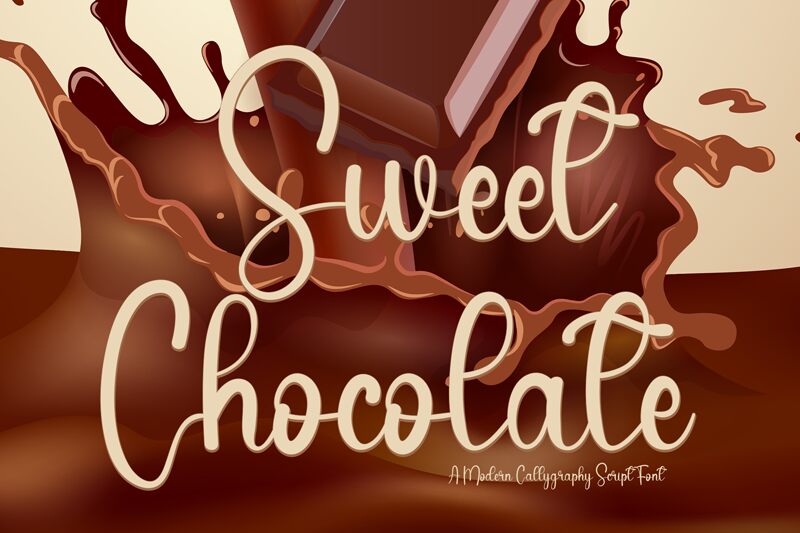
Sweet Chocolate
Sweet Chocolate, designed by Etik Fatimah, is a font that captures the essence of personal touch with its handwritten style. Its flowing letters and organic feel are reminiscent of a heartfelt note, making it an ideal choice for projects that require a dash of warmth and intimacy.
The charm of Sweet Chocolate lies in its balance between casual elegance and playful flair. This makes it particularly suitable for invitations, greeting cards, branding materials for boutique businesses, or any design that benefits from a handcrafted look. The font’s inviting character adds a personal dimension to digital canvases, evoking the comforting aroma of its namesake treat.